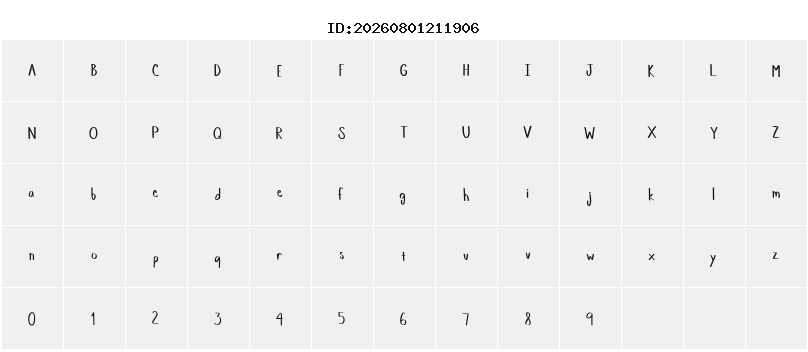
• Font Name: Memos Hand
• Designer: Luis Galv?n
• Manufacturer: Luis Galv?n
About Memos Hand.ttf
Memos Hand.ttf is a modern, elegant sans-serif font designed for ultimate readability and visual harmony. Perfect for branding, headlines, web design, and print materials.